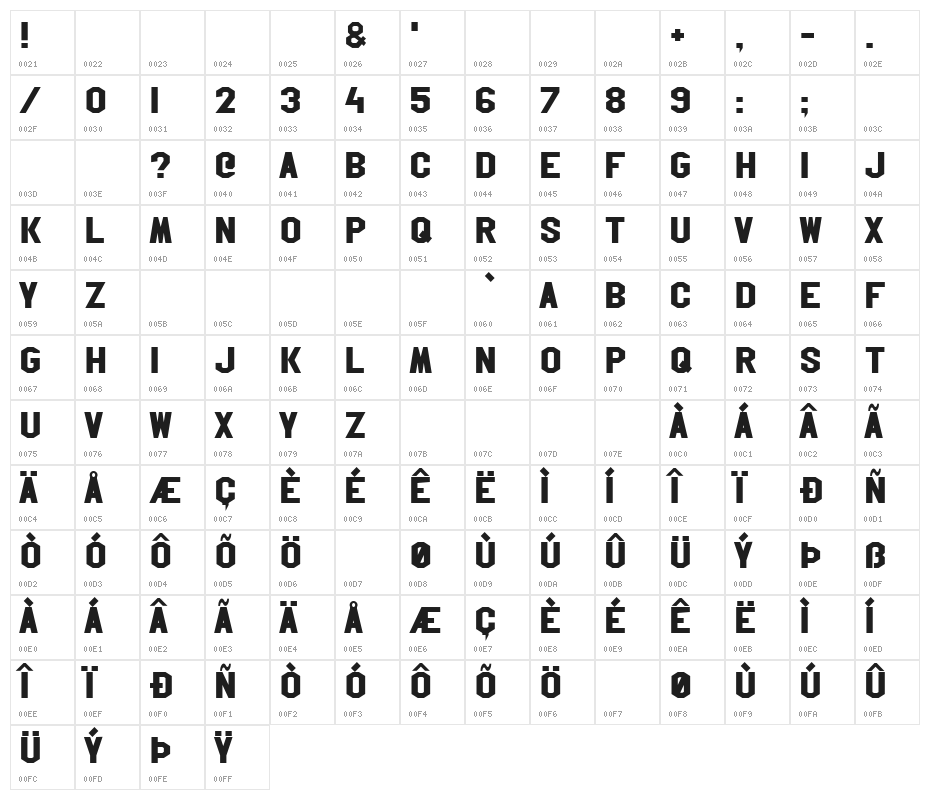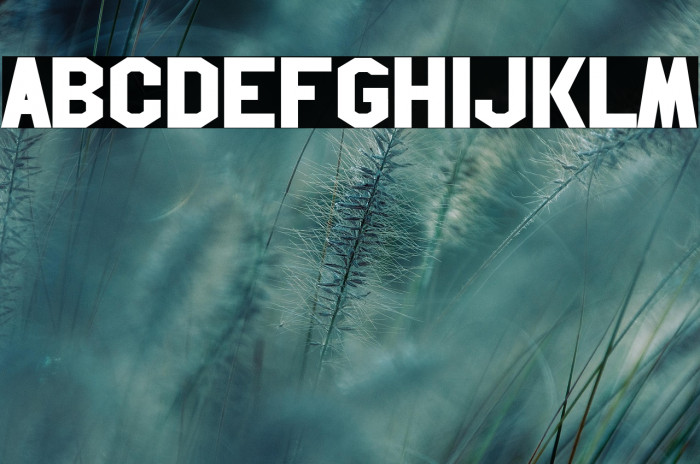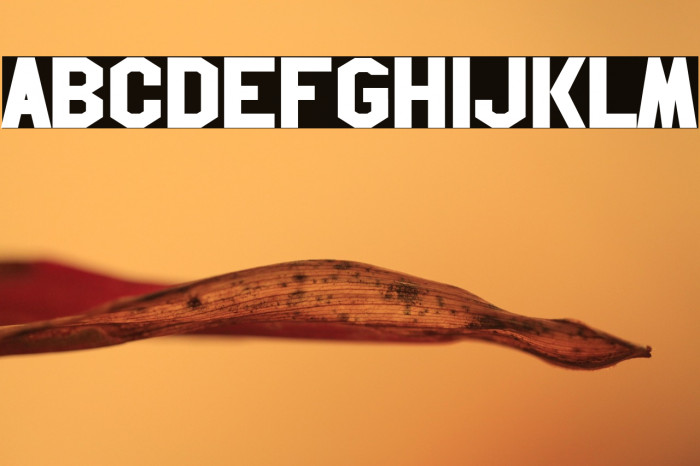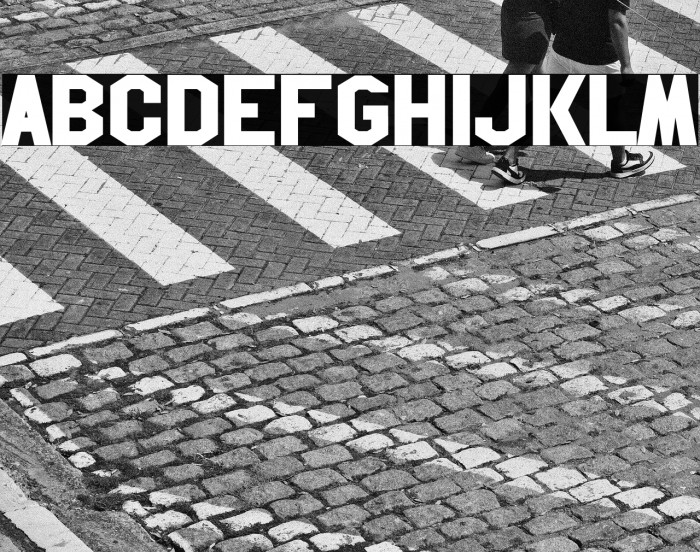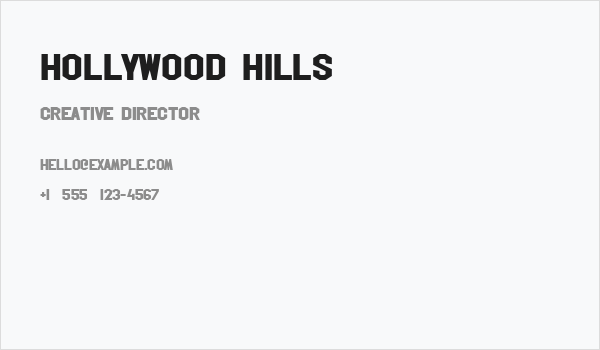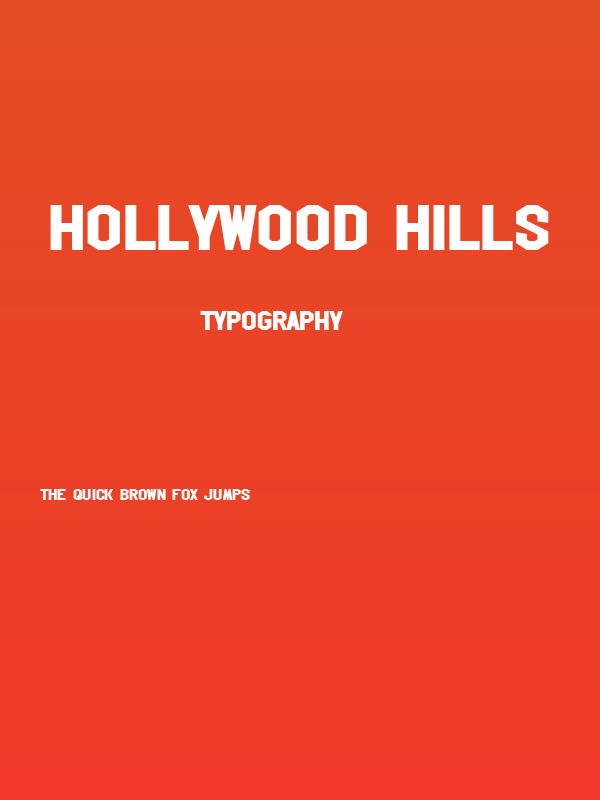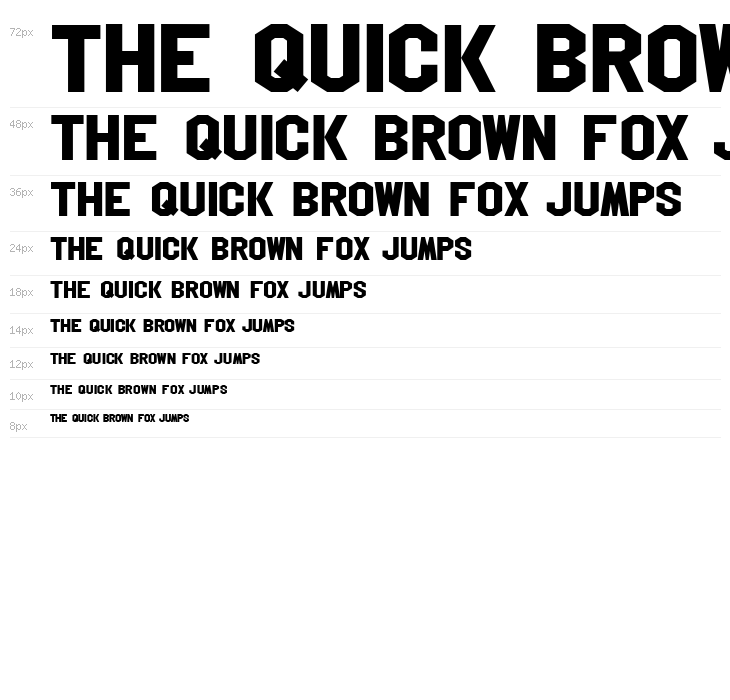
Hollywood Hills Font
Hollywood Hills Description
This font features a bold, geometric style with sharp angles and a strong presence. The uppercase letters are uniform in height, creating a cohesive and structured appearance. The numbers and special characters maintain the same boldness, ensuring consistency across all characters. The font's design is reminiscent of vintage signage, with a modern twist that makes it suitable for contemporary applications. Its thick strokes and angular cuts give it a distinctive look, making it ideal for projects that require a strong visual impact.
| Overall Style | Vintage, Modern |
| Proposed Projects | Ideal for posters, headlines, branding, and signage that require a strong visual impact. |